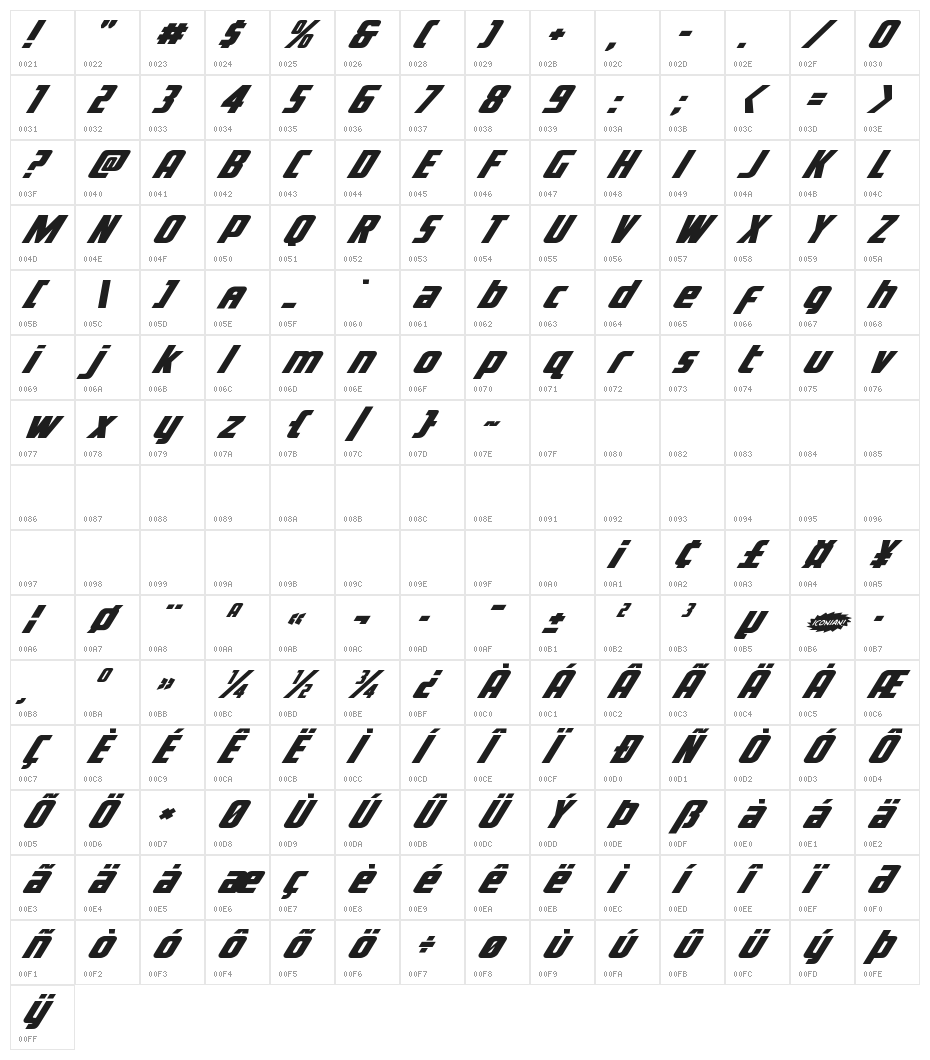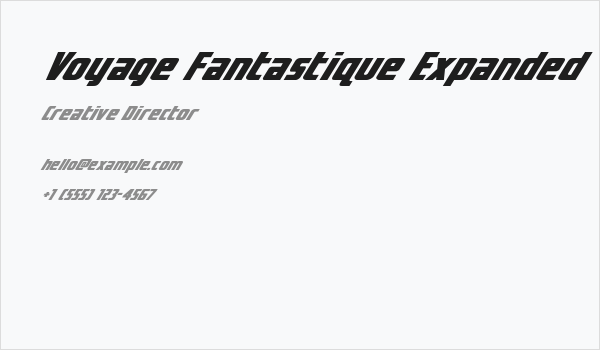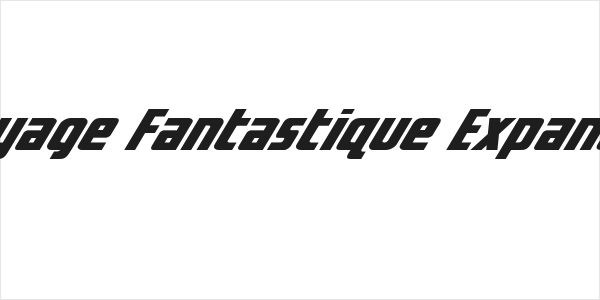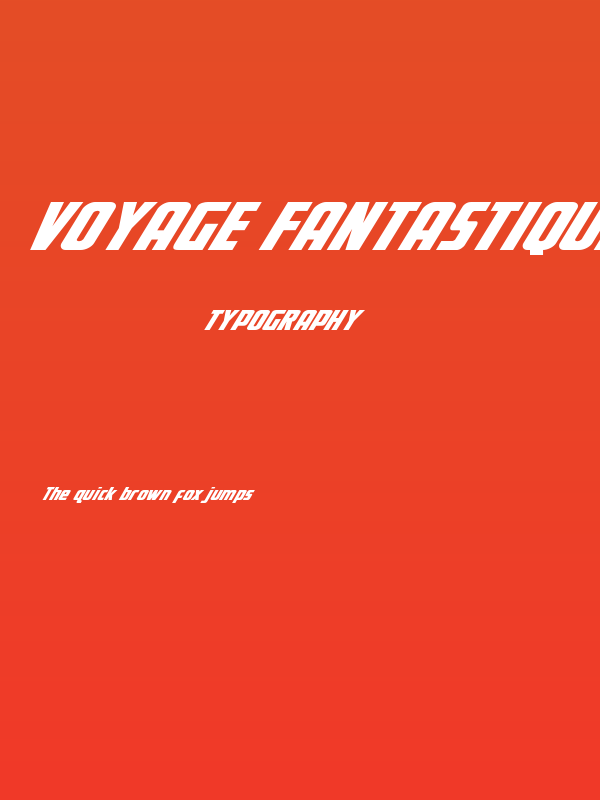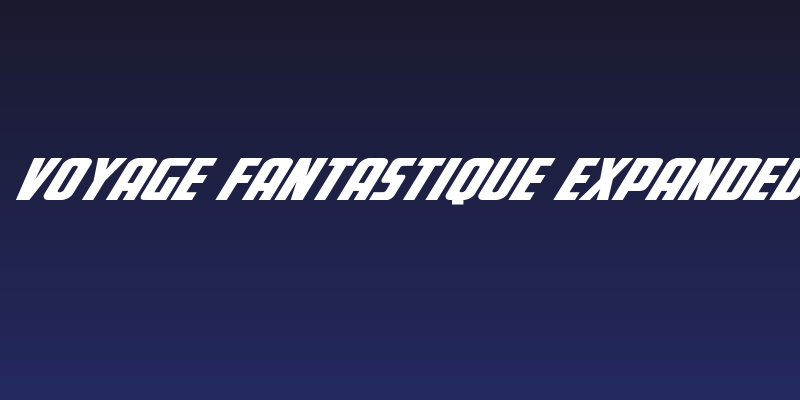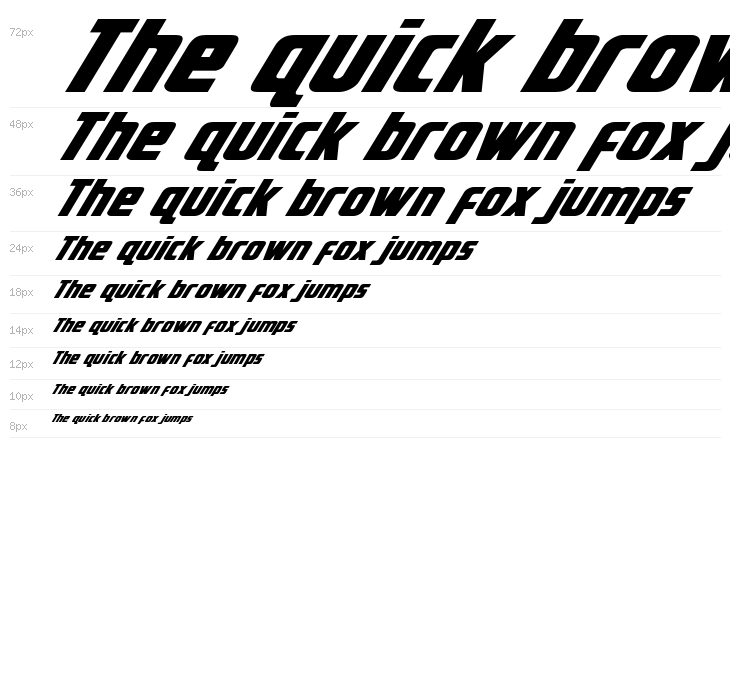
Voyage Fantastique Expanded Font
Voyage Fantastique Expanded Description
This font features a bold and dynamic style with a strong slant, giving it a sense of motion and energy. The characters are wide and expansive, with a consistent thickness throughout, creating a uniform and impactful appearance. The uppercase and lowercase letters maintain a cohesive design, with sharp angles and clean lines that enhance readability. The numerals and special characters are designed to match the overall aesthetic, ensuring a seamless integration across various uses. This font's distinct style makes it suitable for projects that require a bold and modern look.
| Proposed Projects | Ideal for sports branding, dynamic posters, and modern advertising campaigns. |